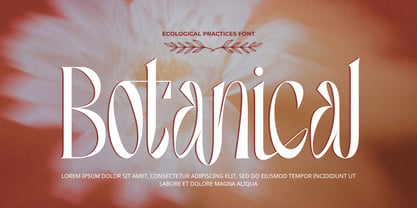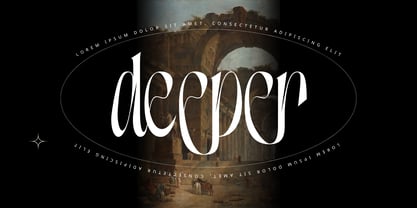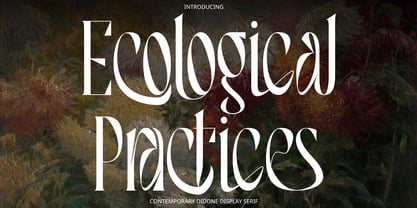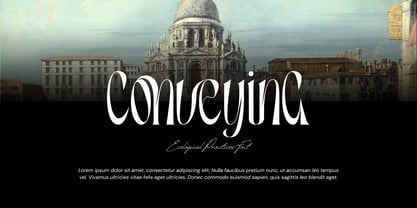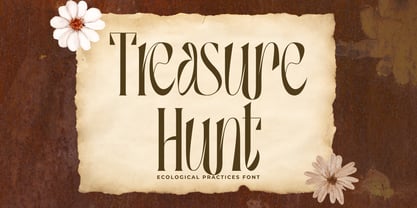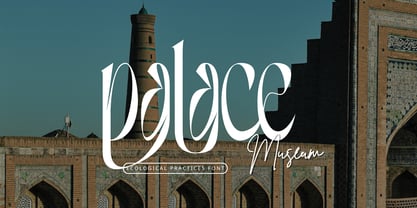
Ecological Practices
La famille de polices Ecological Practices a été conçue par 177Studio et publiée par 177Studio. Ecological Practices contient 2 styles et options de package familial. En savoir plus sur cette famille
Ecological Practices - Elegant Serif Font is an elegant high-contrast display serif that brings together the sophistication of modern Didone typography with the expressive beauty of Art Nouveau-inspired forms. Characterized by dramatic contrasts between strong sculptural strokes and delicate hairlines, the typeface features tall, graceful proportions, flowing curves, elongated terminals, and distinctive letterforms that create a refined yet unconventional visual rhythm.